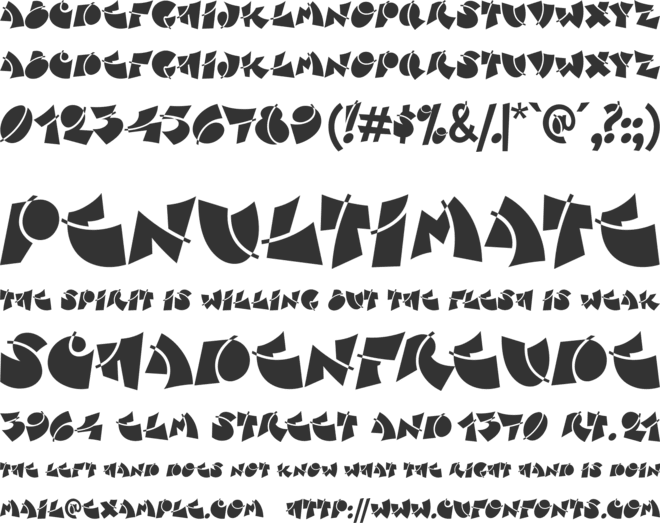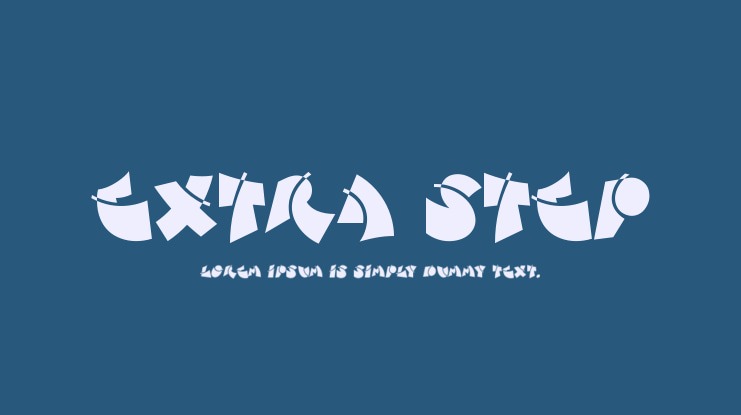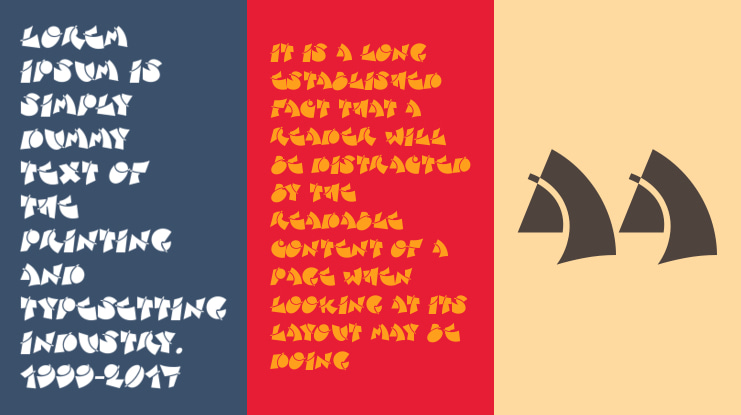
Extra Step Font
Extra Step is an all caps display typeface supporting the standard Latin alphabet glyphs. It has been crafted during the 2020 quarantine time and the 36 days of type challenge on Instagram of the same year. The feature of this font is that a portion of (almost) every glyph makes an "extra step" outside its own form and thats how it took its name. It can be used in any kind of project, personal or commercial, for free. Check out the poster version of the font on gumroad.com/l/Hzoeq